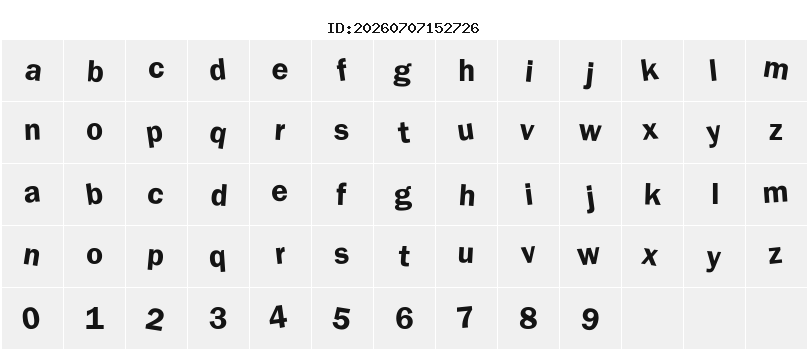
• Designer: Bree Gorton & George Herbert Hirst
About DdaftT-lowercase.ttf
DdaftT-lowercase.ttf is a modern, elegant sans-serif font designed for ultimate readability and visual harmony. Perfect for branding, headlines, web design, and print materials.